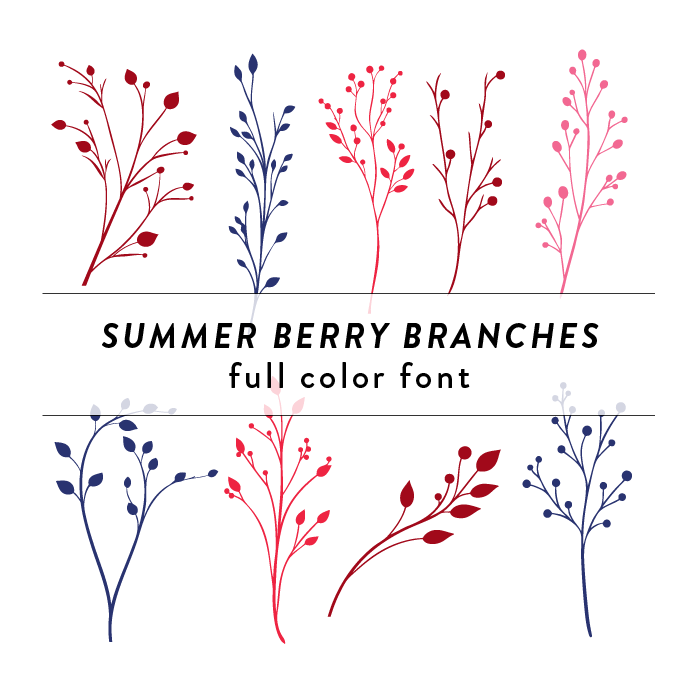
Summer Berry Branches Full Color Font features a playful and vibrant design inspired by the lush foliage of summer. The font includes intricate branches, leaves, and berries, creating a whimsical and organic feel. Perfect for adding a touch of nature to any summer-themed project or craft. This font is a OTF craft font that will appear in color only when used with the silhouette software.